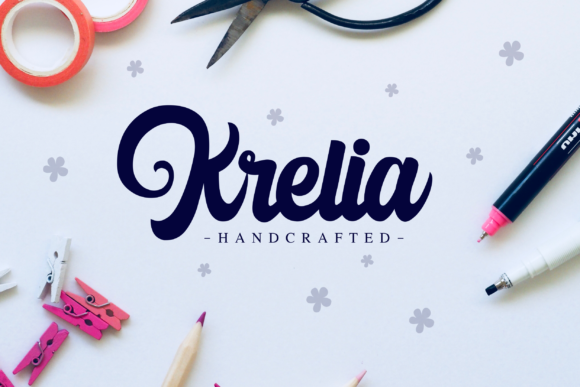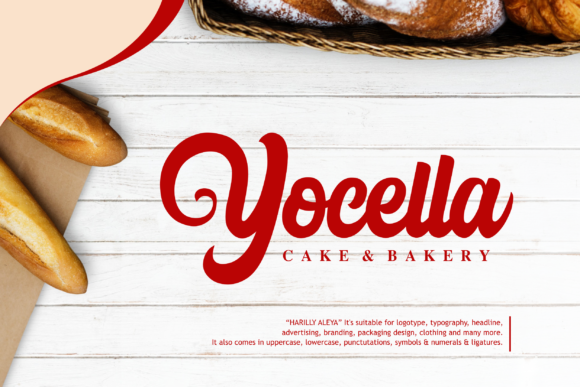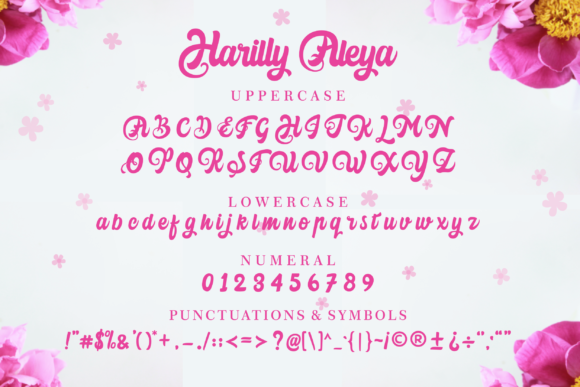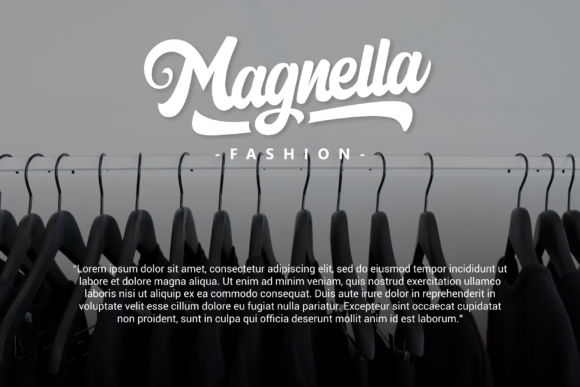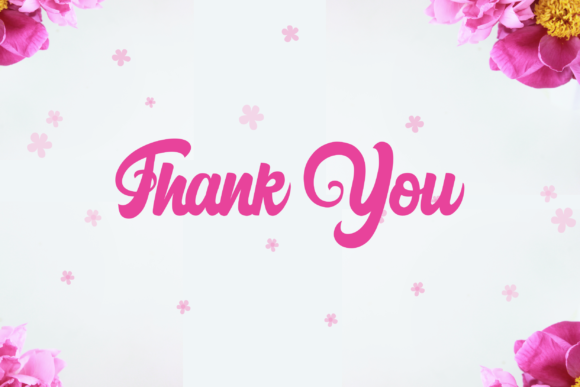
Introduction to Harilly Aleya Font
Do you remember that moment when you’re browsing through Pinterest, and you stumble upon a beautiful craft project that makes your heart skip a beat? For designers, it’s that instant when we see a font that perfectly captures the essence of our creative vision. And for many of us, that font is the Harilly Aleya Font.
As a design resource, the Harilly Aleya Font stands out for its bold and elegant style, making it perfect for adding a touch of romance to any creative project. Whether you’re working on a free download or a high-quality design, this font is sure to elevate your work. With its transparent background, it’s easy to integrate into any design, giving you complete control over the look and feel of your project.
Key Features of Harilly Aleya Font
- High-quality design for creative projects, offering a unique and stylish look.
- Supports transparent background, allowing for seamless integration into various design elements.
- Includes a large character set, including international characters and symbols, making it suitable for multilingual projects.
- Designed with high-resolution graphics, ensuring crisp and clear display on various screens and devices.
- Perfect for designers working on creative projects, such as logos, branding, and digital art, where a unique and stylish font is required.
Honest Review: Harilly Aleya Font
I recently had the chance to experiment with the Harilly Aleya Font, and I must say it’s been a delightful experience. This free download has been a game-changer for my creative project, and I’m excited to share my thoughts on it.
Here are some things that work well for me:
- ✨ The font is highly customizable, allowing me to adjust the size, color, and even add effects to it. This level of control is fantastic for designers who want to push the boundaries of their designs.
- ✨ The transparent background feature makes it easy to integrate the font with other design elements, giving me a lot of flexibility when working on my projects.
- ✨ The font itself is beautifully designed, with a unique and elegant style that adds a touch of sophistication to any design.
While the Harilly Aleya Font is an excellent resource, there are a few limitations:
- ⚠️ The font is not ideal for body text, as it can be quite challenging to read in large quantities. It’s best suited for headings, titles, or other design elements where a more dramatic effect is desired.
Overall, I’m thoroughly impressed with the Harilly Aleya Font. It’s a high-quality design resource that’s perfect for creative projects where a touch of elegance is needed. While it may have some limitations, it’s definitely worth adding to your design arsenal.
Common Use Cases for Harilly Aleya Font
The Harilly Aleya Font is ideal for a variety of creative projects, including:
1. Branding and logos.
2. Digital invitations and greeting cards.
3. Social media graphics and advertisements.
4. Infographics and data visualizations.